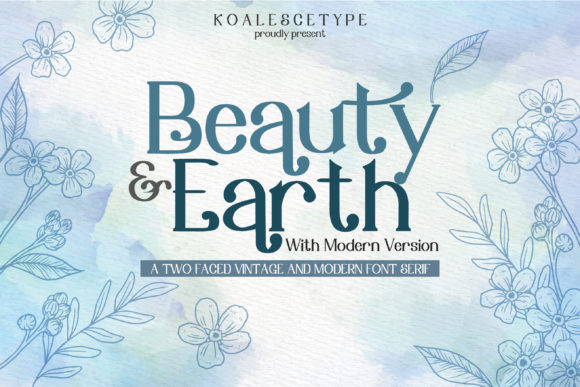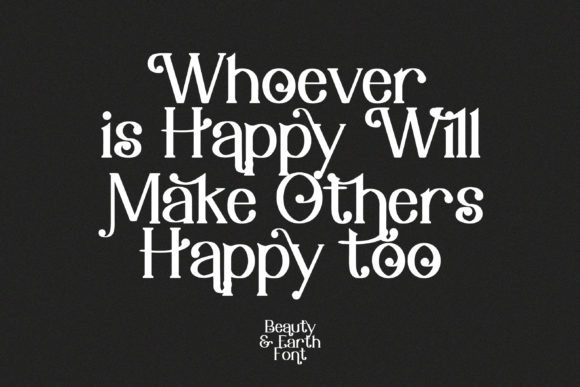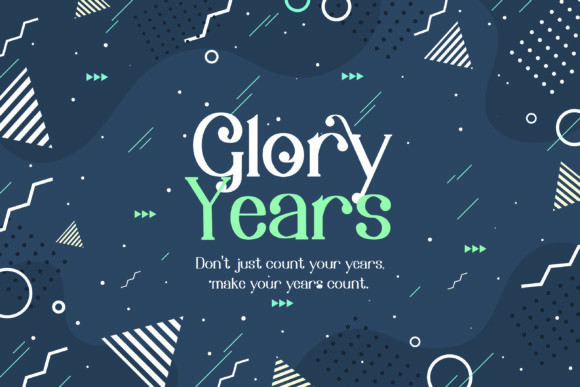
Beauty Earth Font
Beauty Earth is a cool and modern serif font. No matter the topic, this font will be an incredibly asset to your fonts’ library, as it has the potential to elevate any creation.